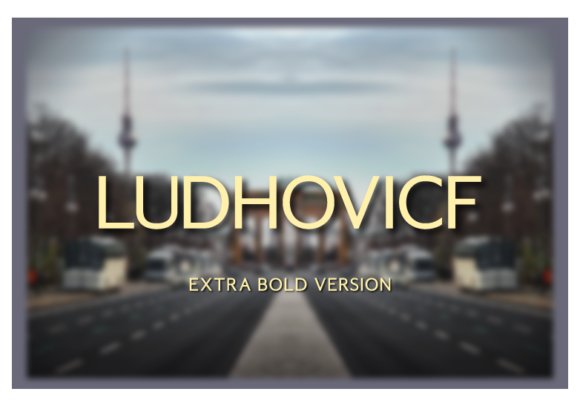
Feel the radiant synergy of Ludhovicf Extra Bold, a sans serif font born from the fusion of old-world charm and modern aesthetics. Crafted by the ingenious A Christie, this font is a captivating blend of Spanish architectural elements and minimalist design.
Ludhovicf Extra Bold is not merely a font; it's an artistic odyssey, a journey through time and style. Its distinctive cut-ins and alluring curves create a visual symphony that commands attention and captivates hearts. As you type with Ludhovicf Extra Bold, you'll feel the harmonious interplay of classic elegance and contemporary flair, leaving an indelible mark on your designs.
Whether you're a seasoned designer or just starting your creative journey, Ludhovicf Extra Bold is your perfect companion. Its versatility knows no bounds, effortlessly adapting to a myriad of projects. From logos and branding to web design and social media graphics, Ludhovicf Extra Bold seamlessly elevates your creations, imbuing them with a touch of sophistication and timeless charm.
With Ludhovicf Extra Bold, you'll unlock a world of creative possibilities. Its meticulously crafted characters dance across the screen, forming words that resonate with power and grace. Experience the joy of crafting designs that speak volumes, captivating your audience with every stroke.
Don't settle for ordinary fonts that fade into the background. Embrace the brilliance of Ludhovicf Extra Bold, a font that commands attention and leaves a lasting impression. As you embark on your creative endeavors, let Ludhovicf Extra Bold be your guiding light, illuminating your path to design excellence.